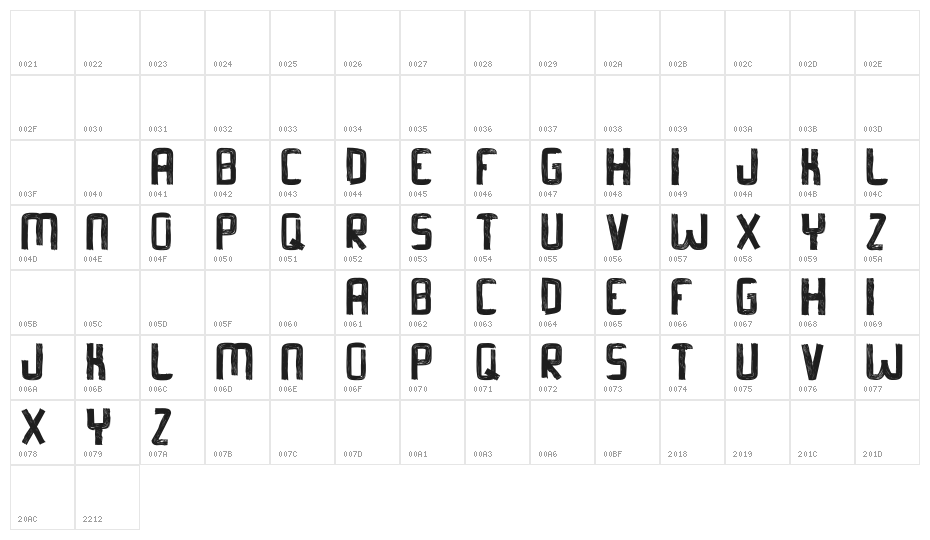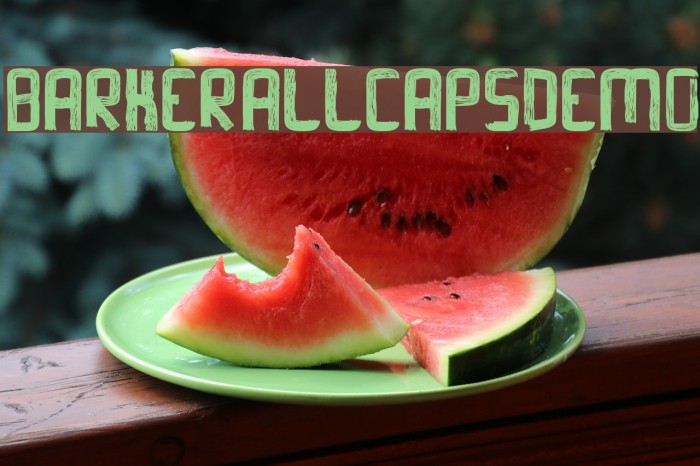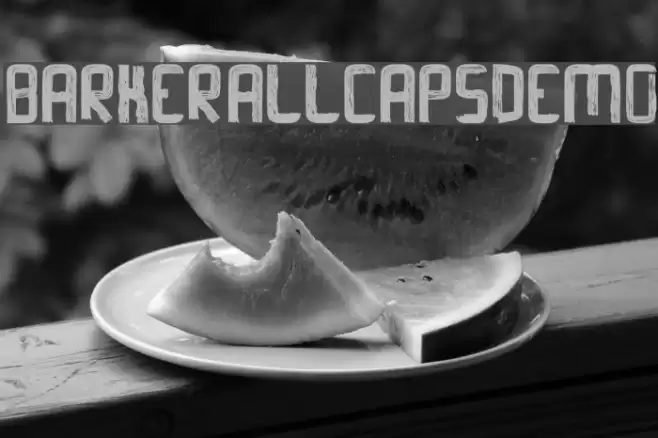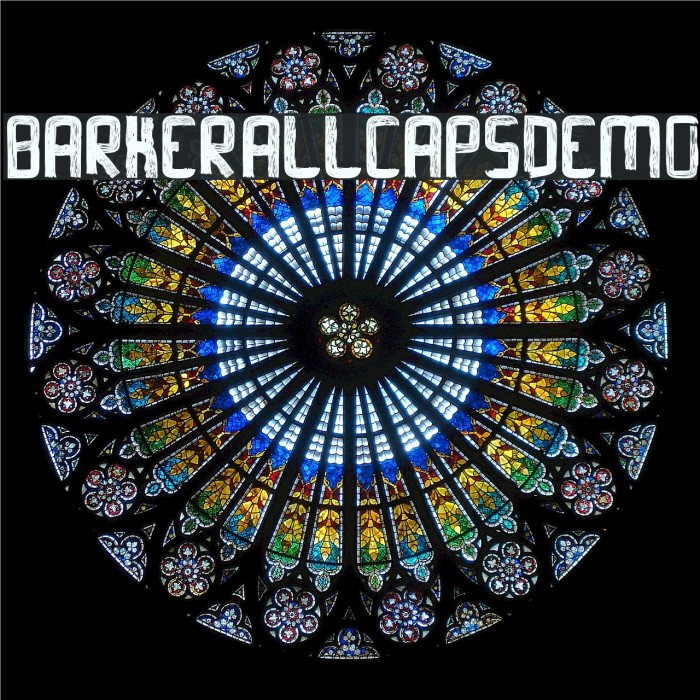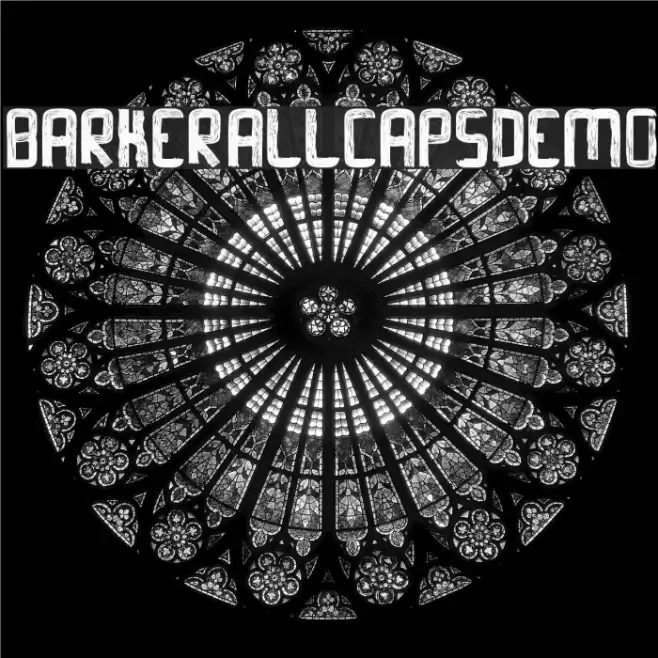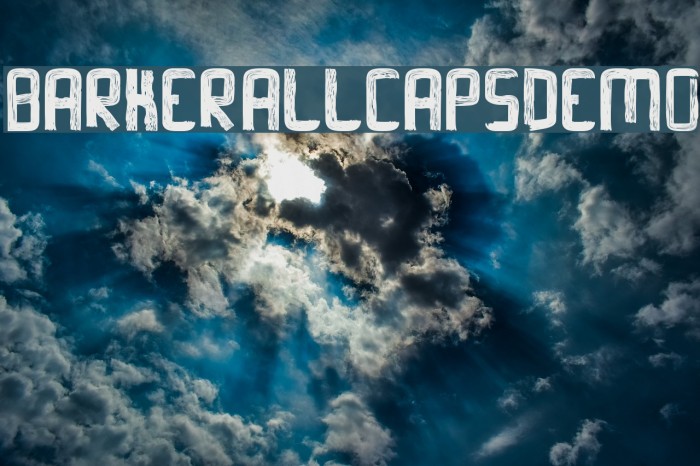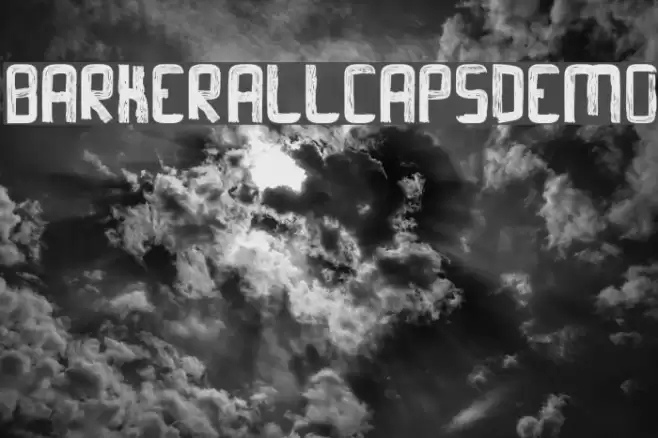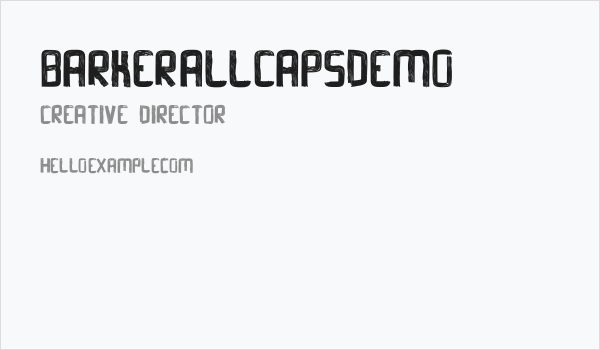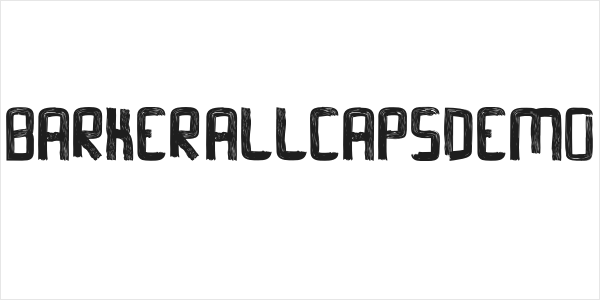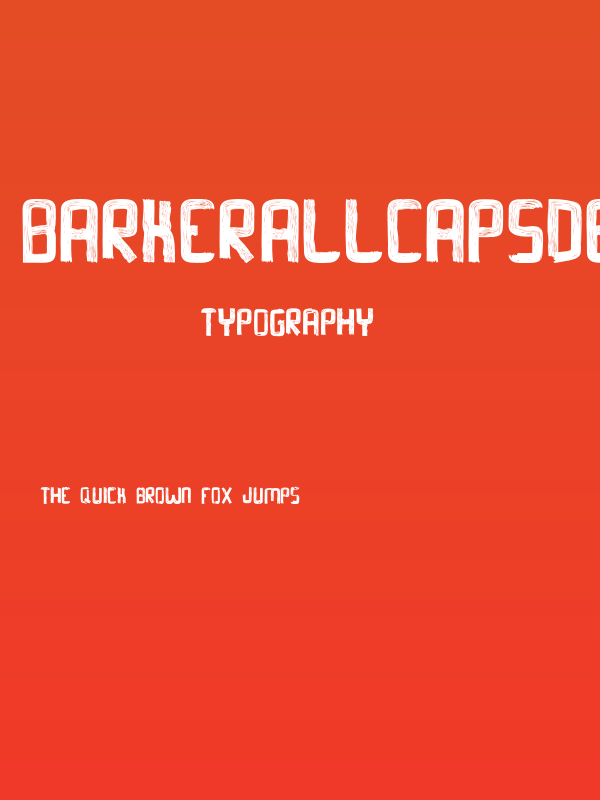
Barker-AllCapsDemo Font
Barker-AllCapsDemo Description
This font features a bold, distressed style with a hand-drawn appearance, giving it a rugged and textured look. The characters are all uppercase, with a consistent height and width, creating a uniform appearance. The strokes are thick and uneven, adding to the font's rustic charm. The distressed effect is achieved through irregular lines and rough edges, making each letter appear unique. This style is reminiscent of vintage signage or posters, evoking a sense of nostalgia and authenticity. The font's boldness ensures high visibility, making it suitable for attention-grabbing designs.
| Proposed Projects | Ideal for vintage-themed posters, rustic branding, signage, and apparel design. |